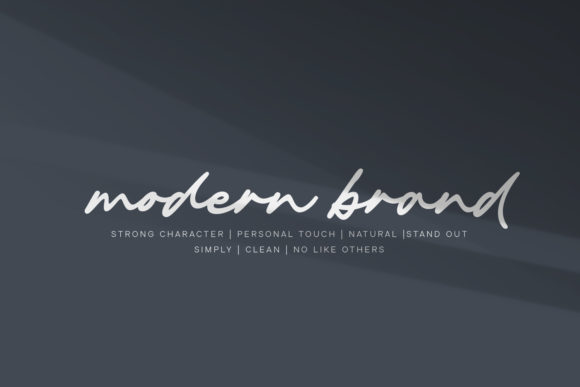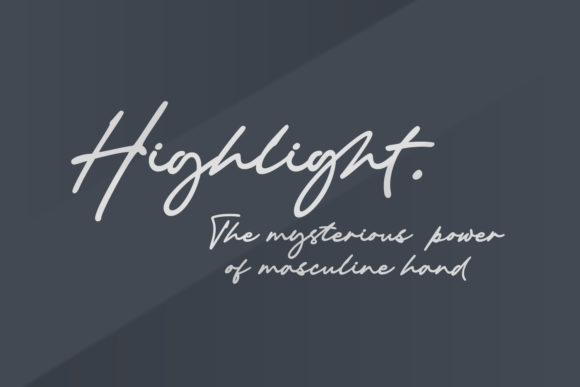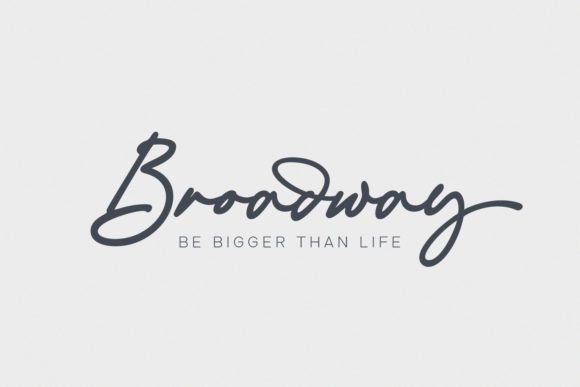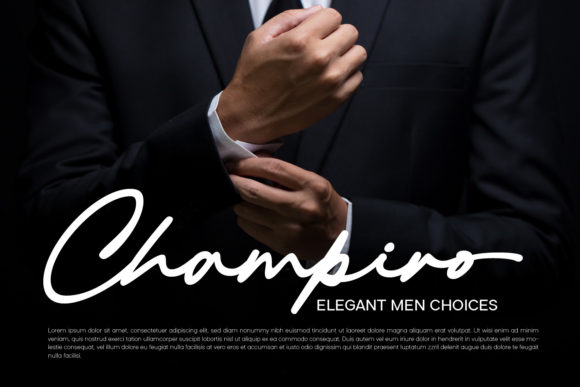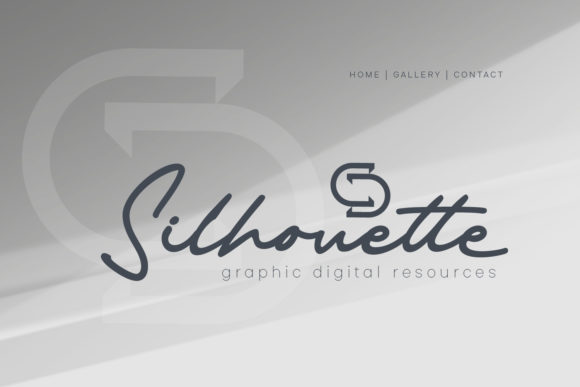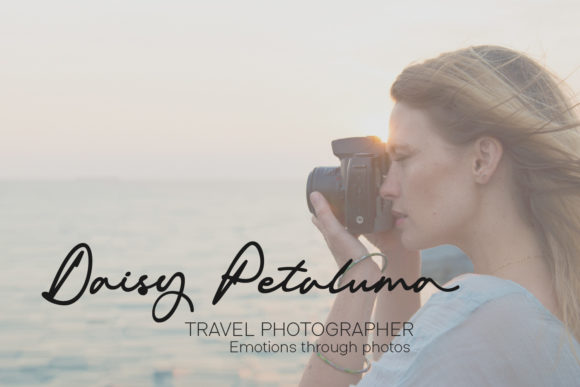
Introduction to Piedmont Font Font
Fonts play a crucial role in design, and the Piedmont Font font is a typeface that brings both character and versatility to any project. Whether you’re working on a branding project, a website, or a print design, the Piedmont Font font offers a unique style that can elevate your work.
Piedmont is a simple and elegant handwritten font.
Fall in love with its incredibly versatile style and use it to create gorgeous wedding invitations, beautiful stationary art, eye-catching social media posts, and much more .
Key Features of Piedmont Font Font
Why Choose Piedmont Font Font?
The Piedmont Font font is more than just a typeface – it’s a design tool that helps you communicate your message with style and clarity. Its unique character set and versatile design make it suitable for a wide range of applications, from elegant invitations to bold headlines.
With its carefully crafted letterforms and balanced proportions, the Piedmont Font font ensures readability and visual appeal across all mediums.
What makes Piedmont Font font special?
The Piedmont Font font stands out with its unique design, exceptional readability, and versatility across various design applications.